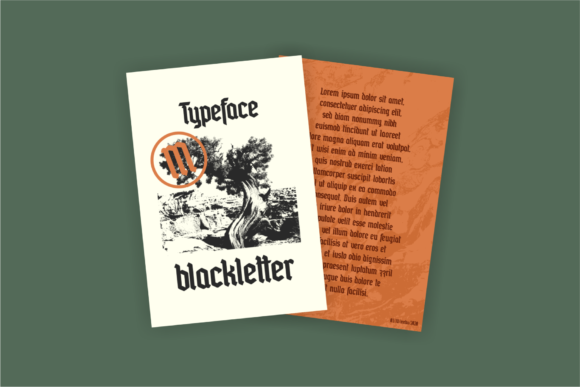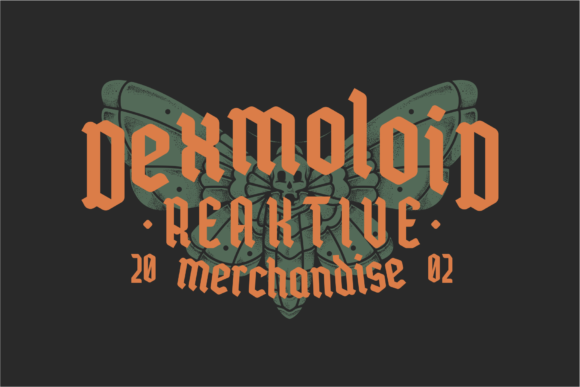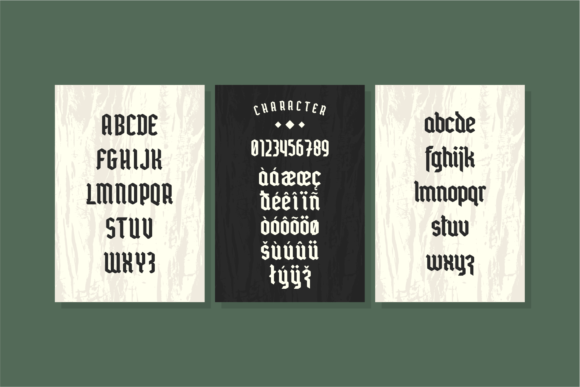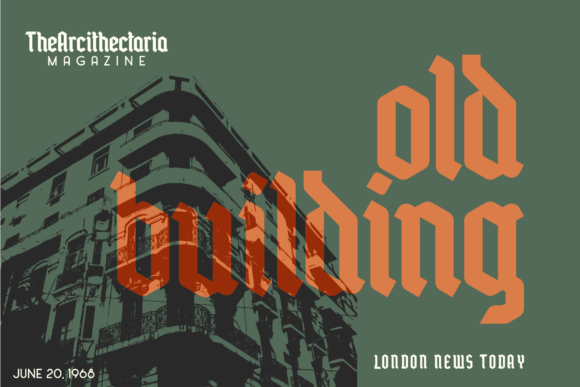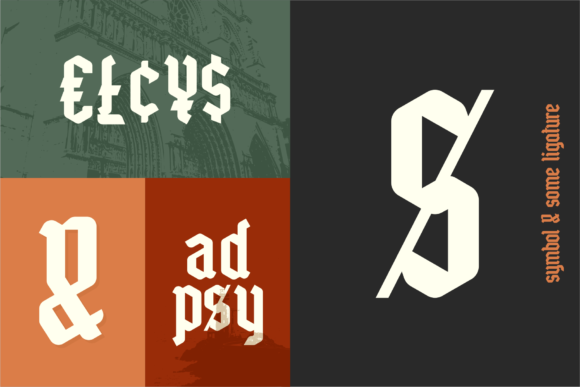
Introduction to Mordova Font
Have you ever stared at a blank canvas, waiting for the perfect font to spark your creative project? That’s exactly what happened to us when we discovered the Mordova Font. This modern blackletter font is more than just a design resource – it’s a game-changer for designers looking to elevate their work.
With its sleek, high-quality lines and versatility in use, Mordova Font is the perfect addition to any design arsenal. Whether you’re working on a print project, creating moving images, or designing for the web, this font is sure to make your work stand out. And the best part? It’s available for free download, making it an accessible design resource for creatives of all levels.
Key Features of Mordova Font
- High-quality, professional design suitable for various creative projects.
- Comes with a transparent background, allowing for seamless integration into designs.
- Features a clean, modern design with a unique aesthetic that sets it apart from other fonts.
- Designed to be highly legible, even at small font sizes, making it perfect for body text and headlines.
Honest Review: Mordova Font
I recently came across the Mordova Font and I must say, I’m impressed. This font is a valuable addition to any designer’s toolbox, offering a unique and creative touch to any project.
One of the standout features of the Mordova Font is its high quality design. The font is crisp and clean, making it perfect for both digital and print projects. I particularly appreciate the transparent background, which allows for seamless integration with other design elements.
Here are some of the things that work well with the Mordova Font:
- ✨ Unique and creative design that adds a touch of personality to any project
- ✨ High quality design that is perfect for both digital and print projects
- ✨ Transparent background that makes it easy to integrate with other design elements
- ⚠️ Limited font styles and variations, which may not be suitable for complex design projects
- ⚠️ Not as extensive as some other design resources, which may limit its versatility
Overall, I’m very impressed with the Mordova Font. It’s a great addition to any designer’s toolbox, offering a unique and creative touch to any project. While it may have some limitations, it’s a high-quality design resource that is definitely worth considering.
Tips for Getting the Most Out of Mordova Font
For the best results, use Mordova Font in conjunction with other high-quality design resources, such as graphics and images. Experiment with different font sizes, colors, and styles to find the perfect look for your creative project. You can also use Mordova Font in combination with other design elements, such as shapes and icons, to create a unique and eye-catching design.
Common Use Cases for Mordova Font
Mordova Font is ideal for a variety of design projects, including: logos, business cards, brochures, posters, and social media graphics. It’s also great for creating presentations, reports, and documents that require a professional and high-quality look. With its transparent background and free download option, Mordova Font is a valuable design resource for any creative project.